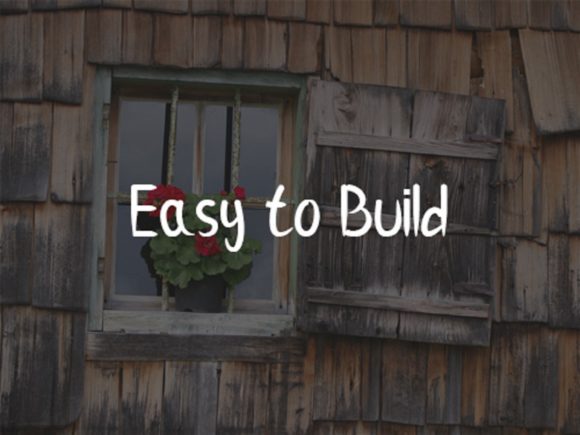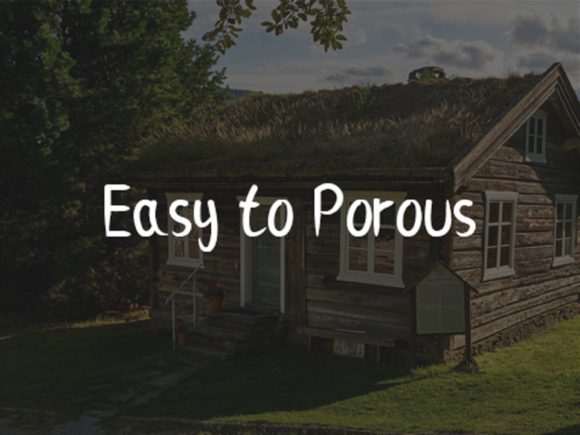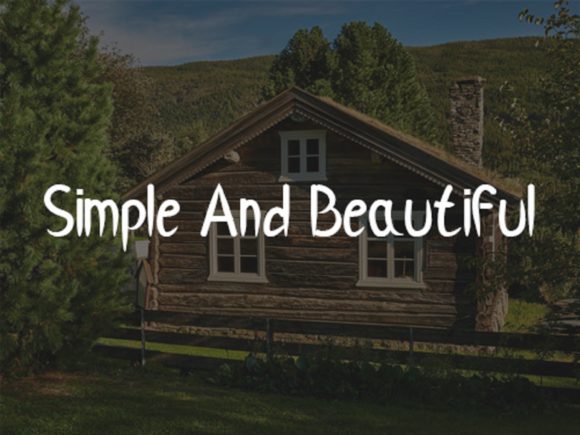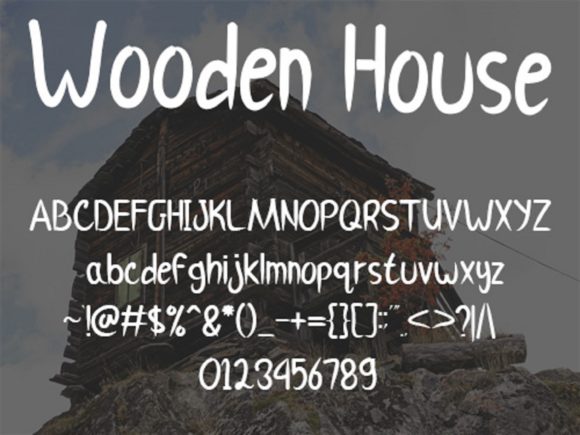
About Wooden House Font
Wooden House is a fun and adaptable handwritten font. Whatever the topic, this font will be a wonderful asset to your font library, as it has the potential to enhance any creation.